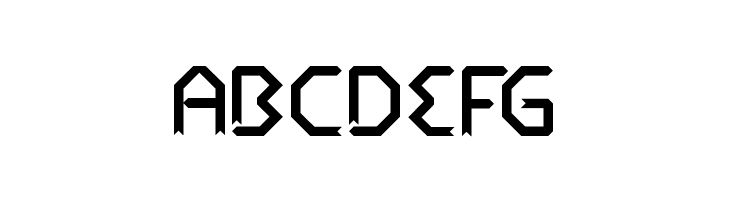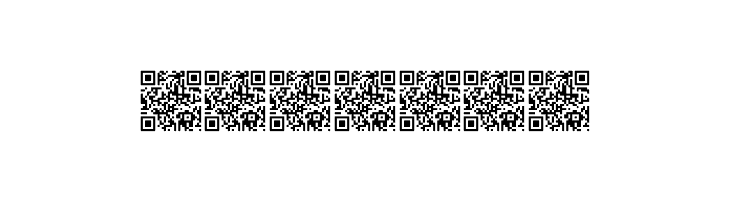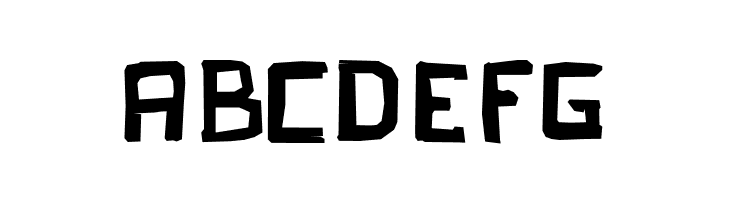
Fonts added on January 14, 2014 (8)
Bad Caligula Font
A bold, distressed font with rough, textured edges and a grungy appearance.
Caligula Font
Font by www.paintblackeditions.org
A bold, blocky font with a distressed, vintage-inspired design.
CoralSea Font
Font by Des Gomez
A playful, hand-drawn font with tall, narrow characters and a casual style.
Peleja Regular Font
www.flickr.com/kylesatori
A bold, hand-drawn font with jagged edges and a rugged, artistic style.
righttrack Font
A bold, textured font with a vintage halftone pattern and 3D shadow effect.
rocket brothers Font
SugarHoneyIcedTea Font
Font by Des Gomez
A playful, casual handwritten font with tall, narrow letters and a whimsical style.
UltraViolet Font
Font by Des Gomez
A playful, hand-drawn font with elongated, narrow letterforms and a whimsical style.